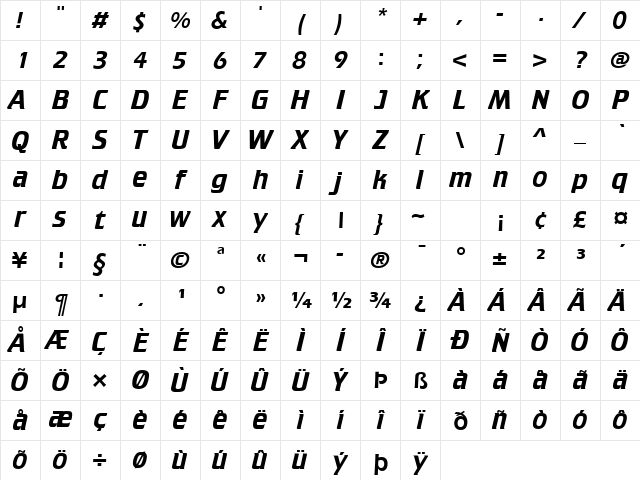
Krupper (Plain)
Style: (Plain)
Krupper Family
Krupper (Plain)
Design Context for Krupper
Krupper is a composed and adaptable typeface that performs quietly and consistently across a wide range of design contexts.